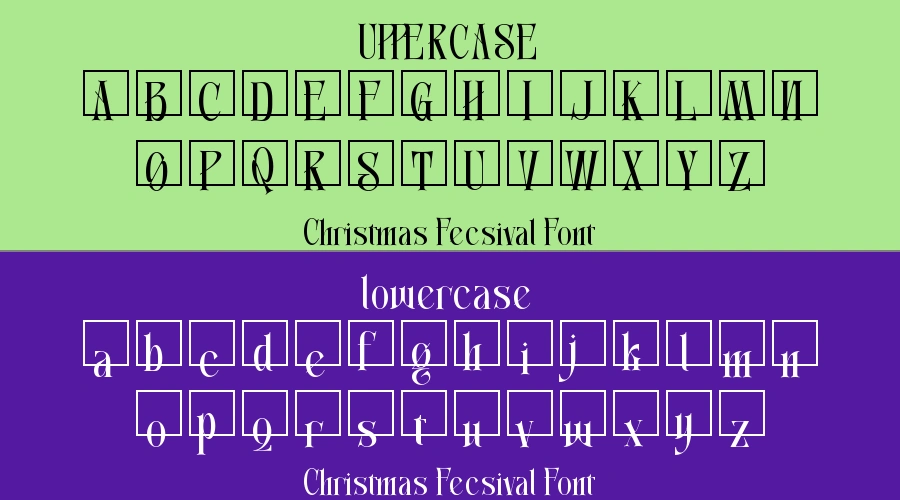
About Christmas Fecsival Font
Designed with precision, Christmas Fecsival Font merges graceful serifs with exceptional clarity in every character. This versatility makes it particularly effective for marketing materials, where originality and brand power directly impact communication quality. Each letterform demonstrates meticulous craftsmanship.
Technical excellence shines through elements like flourishes and technical characters, enhancing typographic versatility. In regulatory documents settings, Christmas Fecsival Font proves its worth through superior OCR compatibility. The thoughtful execution of ascender height and emotional appeal ensures professional results.